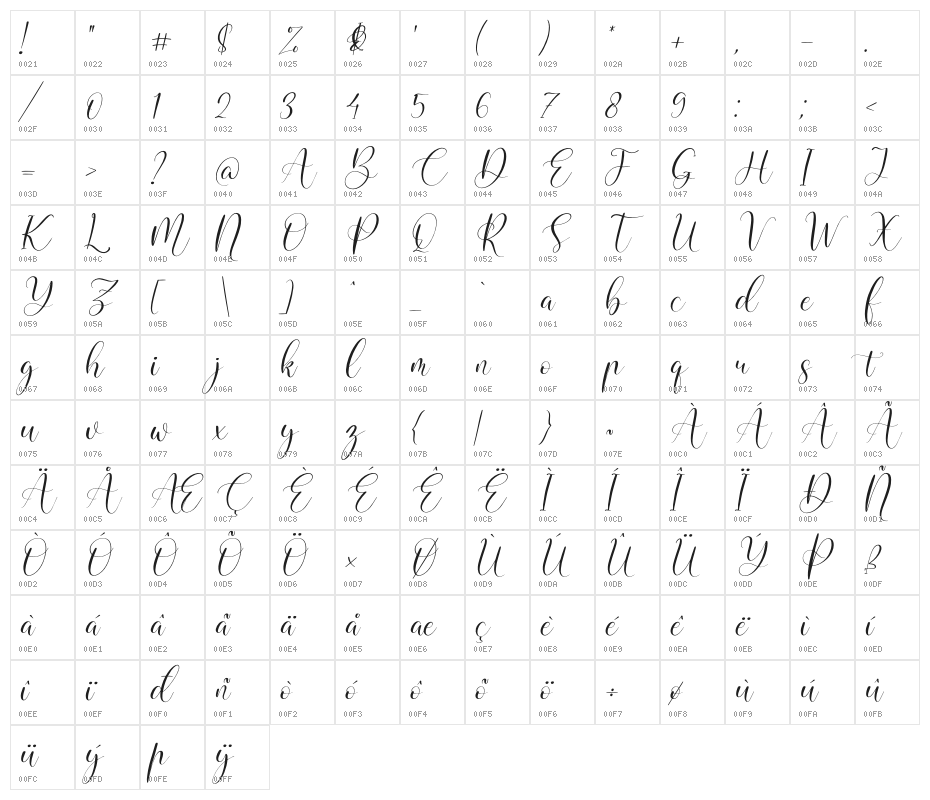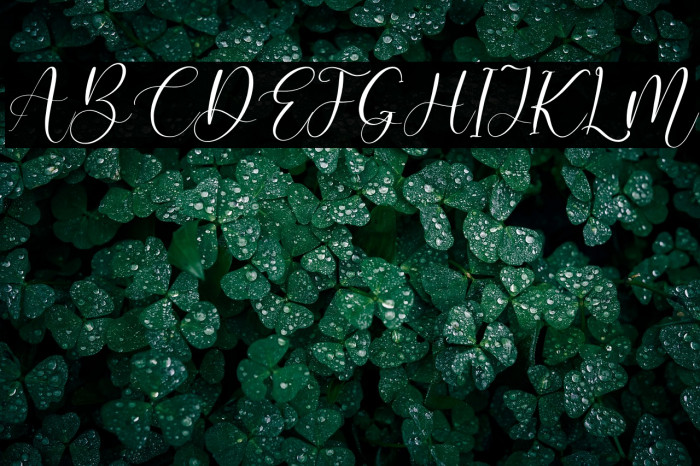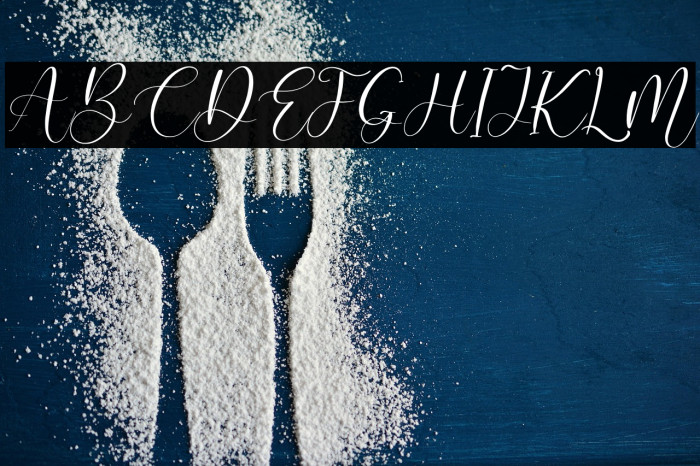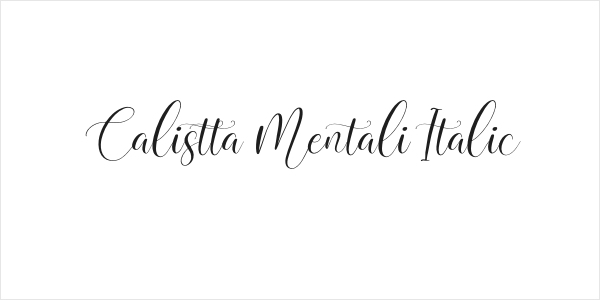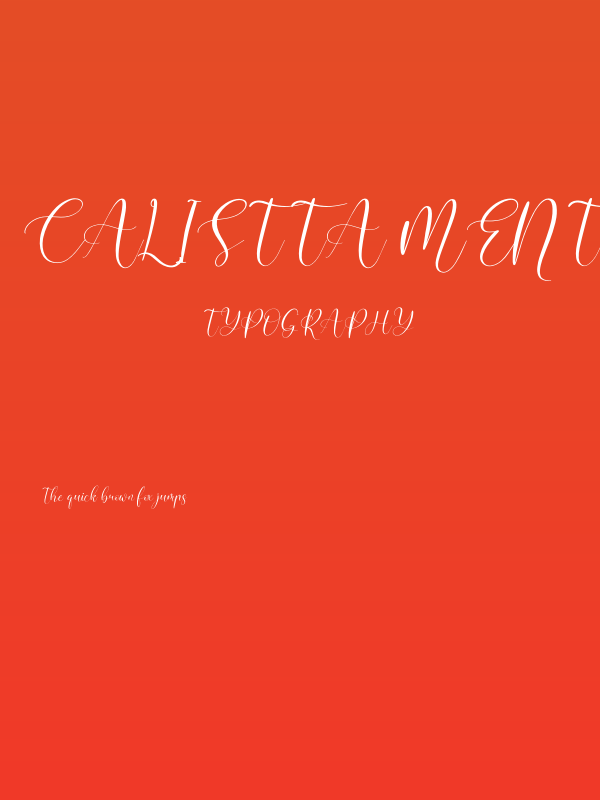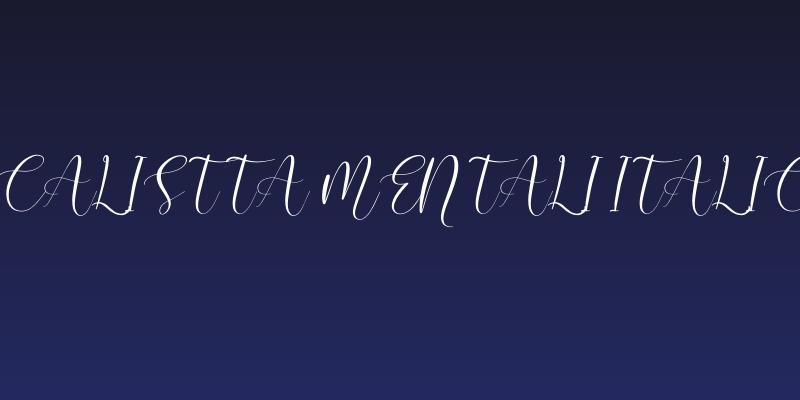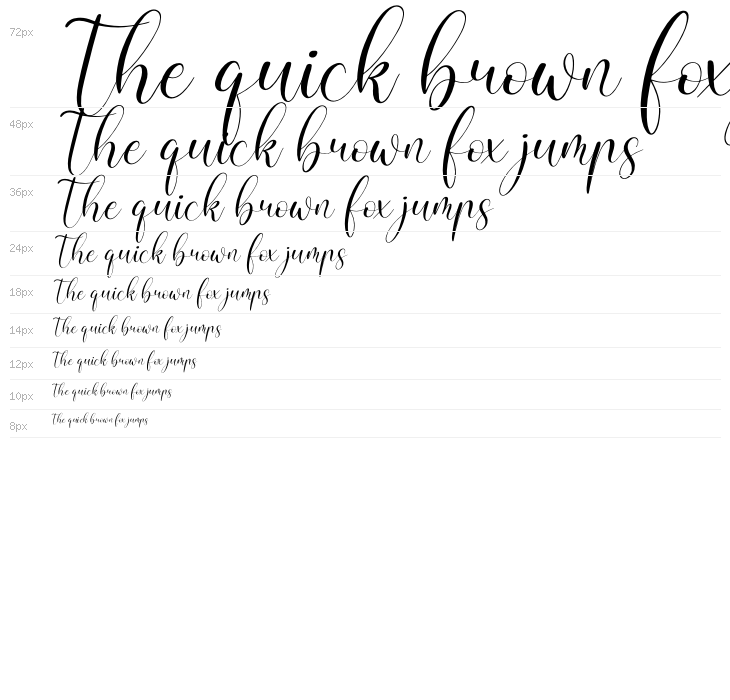
Calistta Mentali Italic Font
Calistta Mentali Italic Description
This elegant script font features flowing, interconnected letters with a sophisticated and artistic flair. The uppercase letters are characterized by their sweeping curves and loops, giving a sense of movement and grace. The lowercase letters maintain a consistent style, with some characters extending below the baseline, adding to the font's dynamic appearance. The numerals are equally stylish, with a slight slant that complements the overall italic nature of the font. Special characters are designed with the same attention to detail, ensuring a cohesive look across all glyphs. This font is perfect for projects that require a touch of elegance and creativity.
Overall StyleElegant, Artistic
Use CaseLogos, Invitations, Decorative text
Proposed ProjectsIdeal for wedding invitations, elegant branding, greeting cards, and artistic posters.